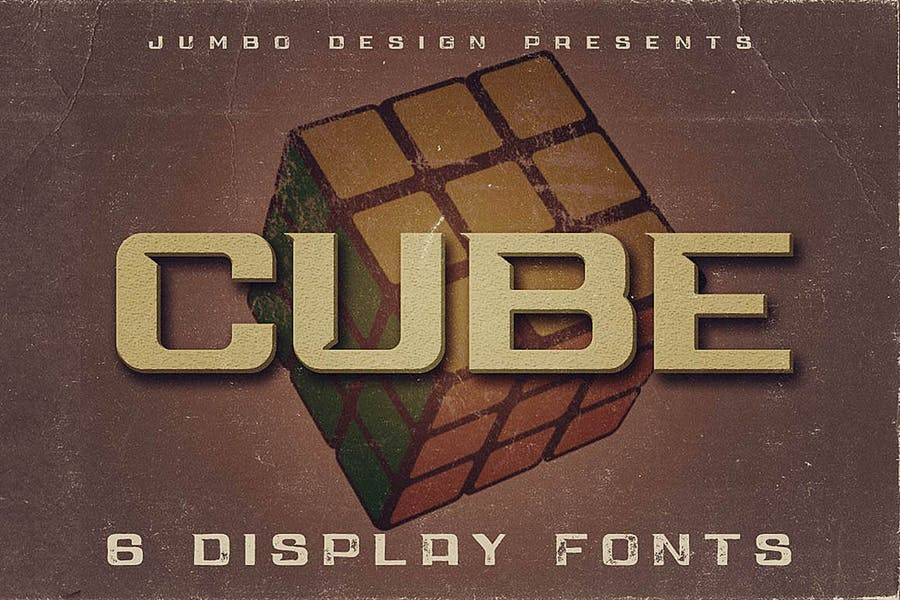
Cube - Display Font
Cube Display Font is perfect for modern architecture branding, geometric design studios, contemporary tech companies, minimalist product packaging, systematic business solutions, mathematical education materials, structural engineering presentations, and precise construction communications.
What makes Cube Display Font exciting is its geometric precision that embodies mathematical perfection and structural harmony with three-dimensional sophistication and architectural elegance. The font features cubic letterforms with geometric proportions and dimensional character that evoke building blocks, architectural blueprints, and the systematic beauty of mathematical precision and structural engineering. Its distinctive cubic styling and geometric appeal communicate order, precision, and dimensional thinking, making every message feel constructed with mathematical accuracy and touched by the perfect symmetry of geometric design and architectural excellence.
The Cube Display Font family includes regular weight with uppercase and lowercase letters, numerals, punctuation marks, and comprehensive geometric symbols. Premium versions often feature multiple weights and dimensional alternates that enhance the cubic, architectural aesthetic perfect for design and engineering applications.
The dimensional character of Cube Display Font makes it particularly valuable for architectural studios, geometric design agencies, and structural engineering firms. Its excellent readability ensures technical specifications and design communications remain clear while maintaining the distinctive cubic aesthetic that appeals to professionals seeking precise geometric solutions and dimensional accuracy.
Architectural design marketers appreciate how Cube Display Font effortlessly conveys geometric authenticity and structural precision. The font's cubic proportions and dimensional details create authoritative design materials that establish connections with audiences who value mathematical accuracy, geometric innovation, and the three-dimensional beauty of cubic design and architectural precision.
The versatile precision of this typeface extends to mathematical education, geometric art, and systematic design where cubic authenticity enhances structural credibility and geometric appeal. Cube Display Font Free Download provides creative professionals with an essential tool for developing memorable, precision-driven designs that resonate with audiences who embrace geometric excellence, dimensional thinking, and the mathematical perfection of cubic design in their architectural and engineering experiences.